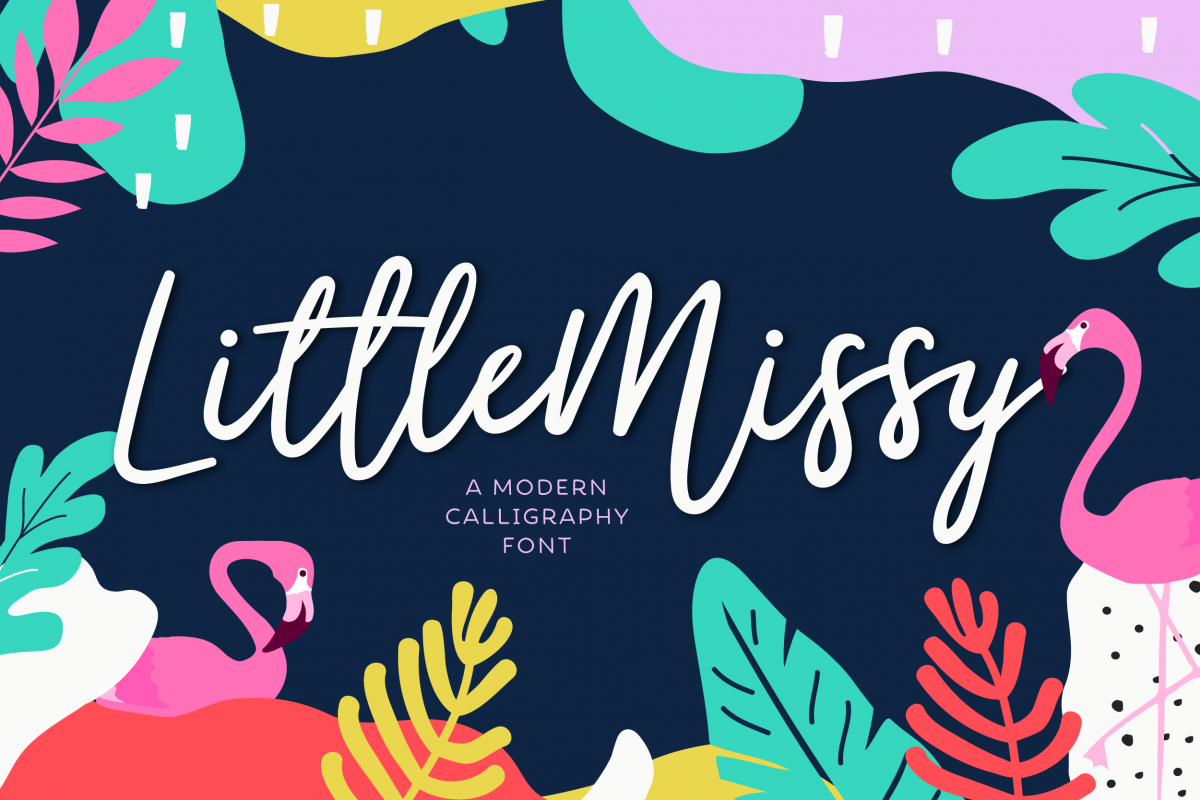
LittleMissy
Add a little fun to your designs with LittleMissy! A modern handwritten script font that is perfect for any professional design & craft projects, be it logo designs, home decor, party invites, t-shirts or quotes! You'll also get a nice surprise with the ligatures included (ee ff ll mm oo rr ss th tt) to create an extra authentic handwritten look!
★ UPDATE ★ Multilingual support!
LittleMissy now supports German, Italian, Luxembourgish, Portuguese, Spanish, Swahili, Swedish, Swiss German & etc